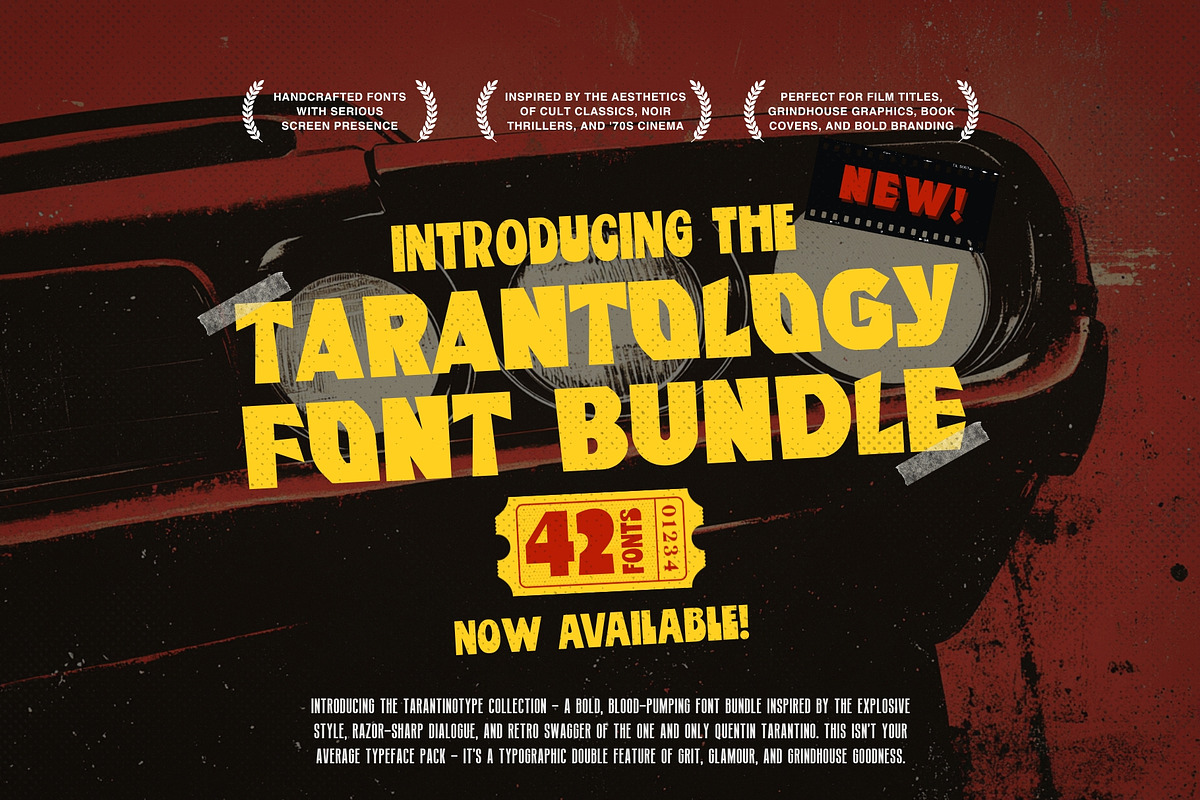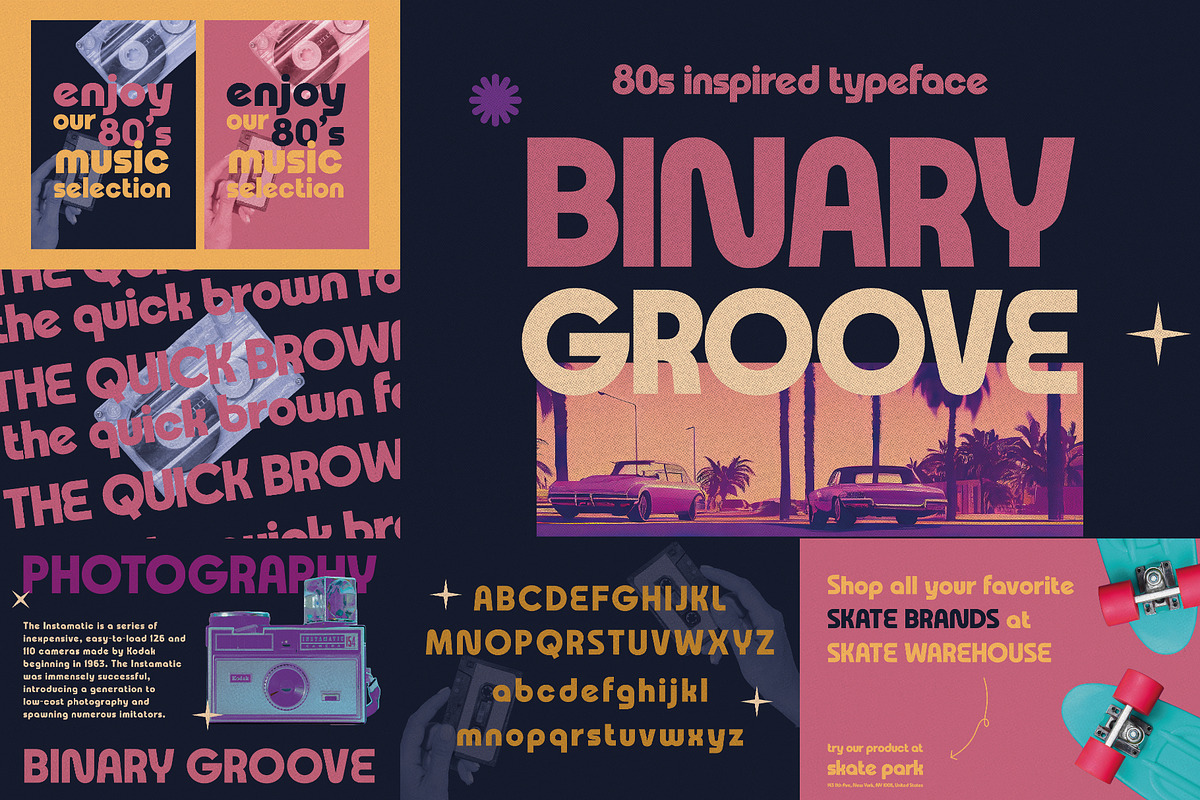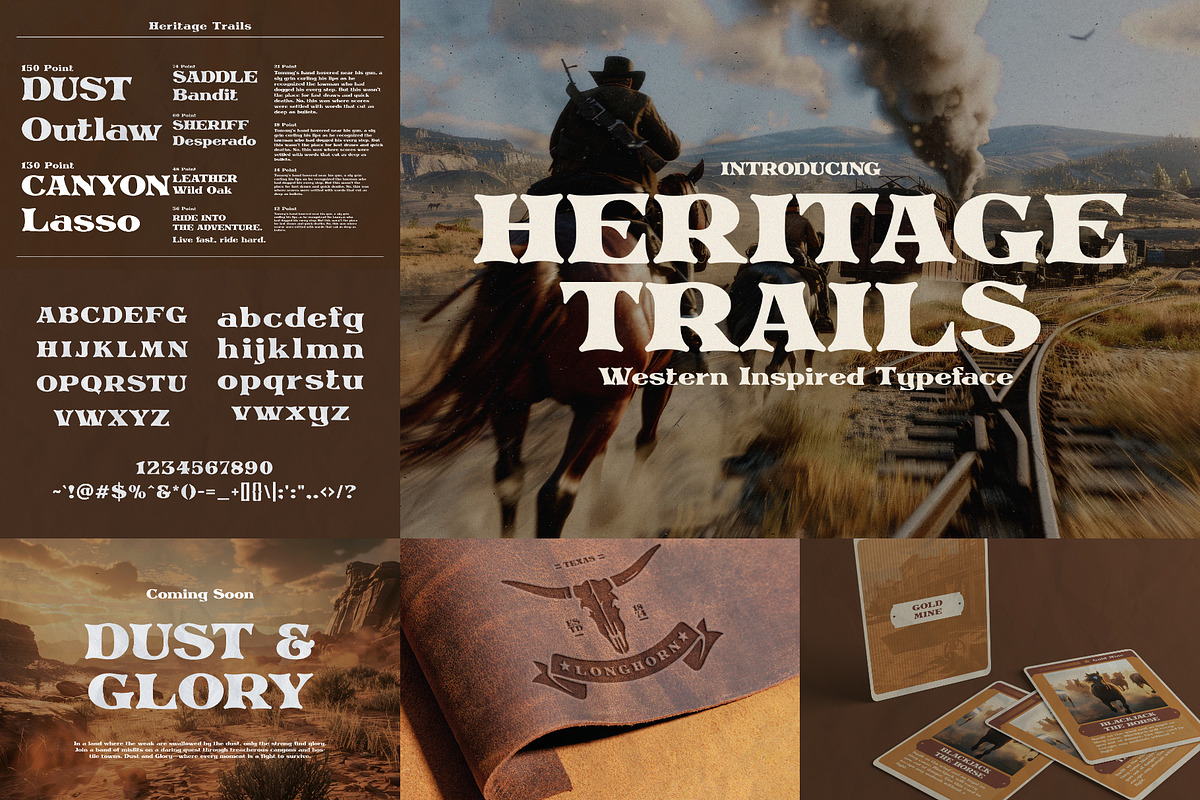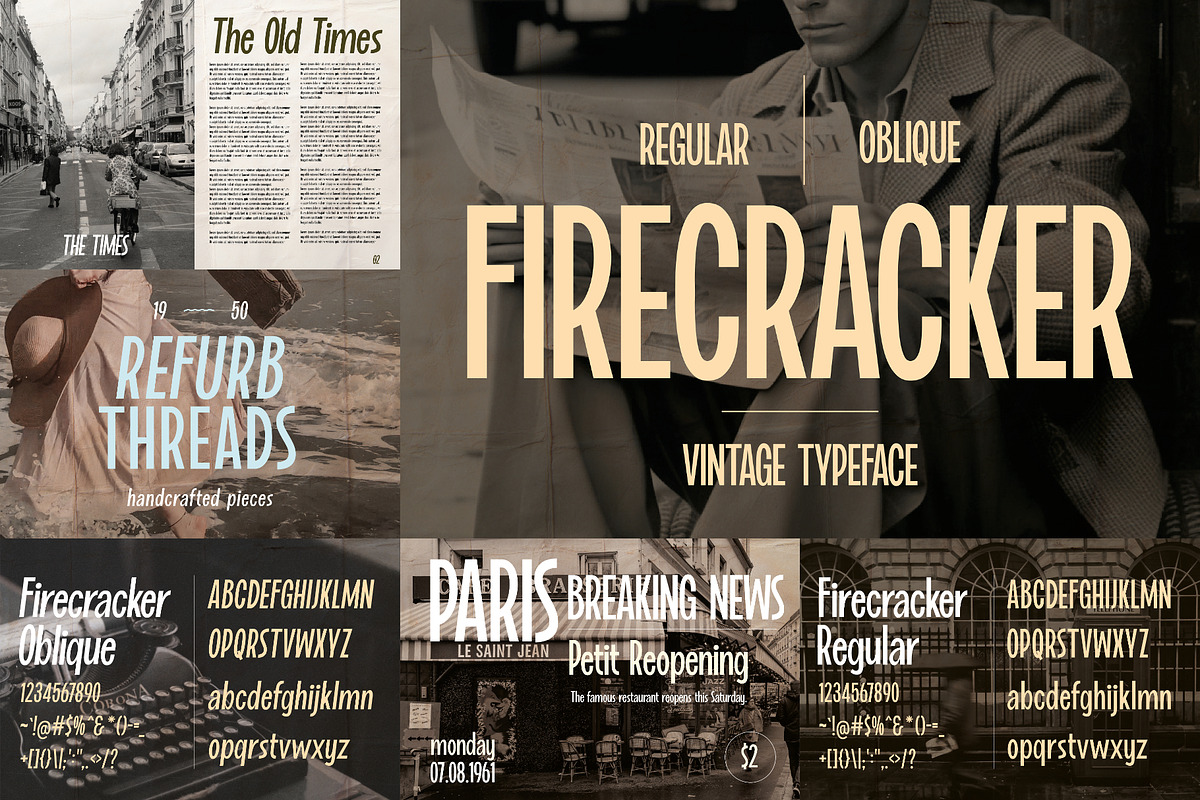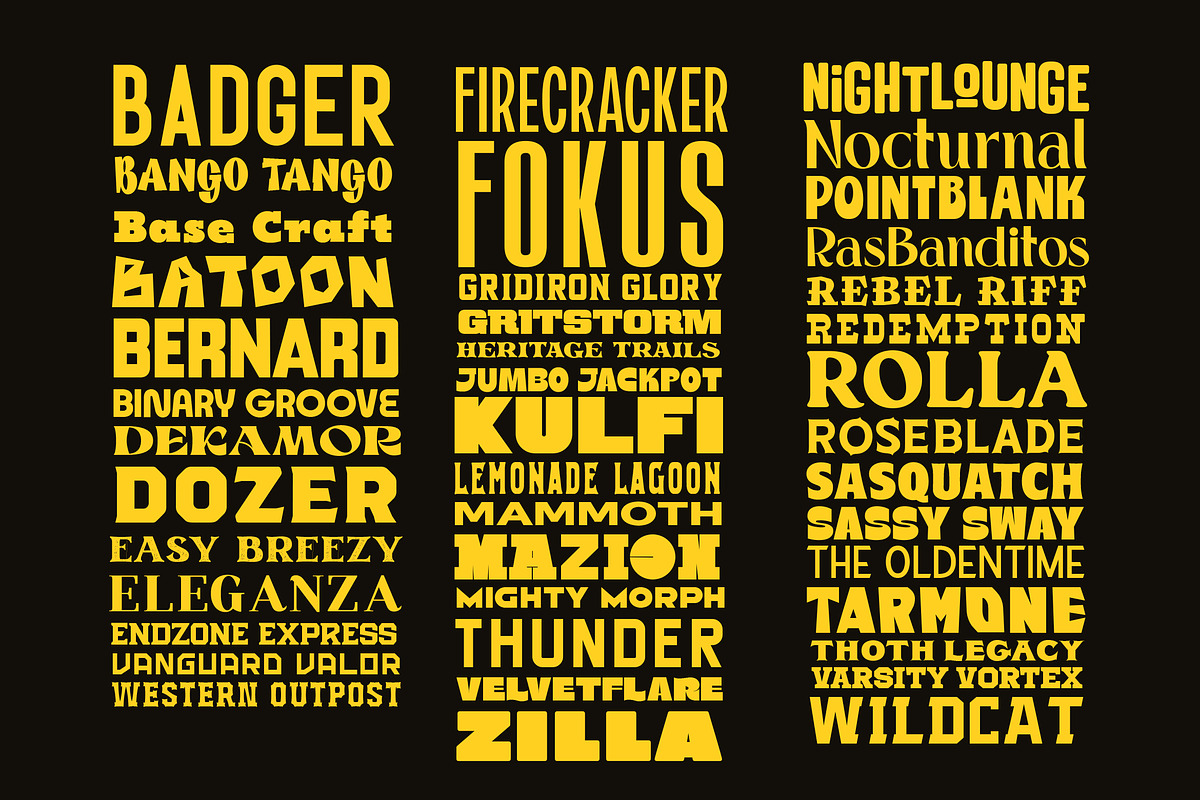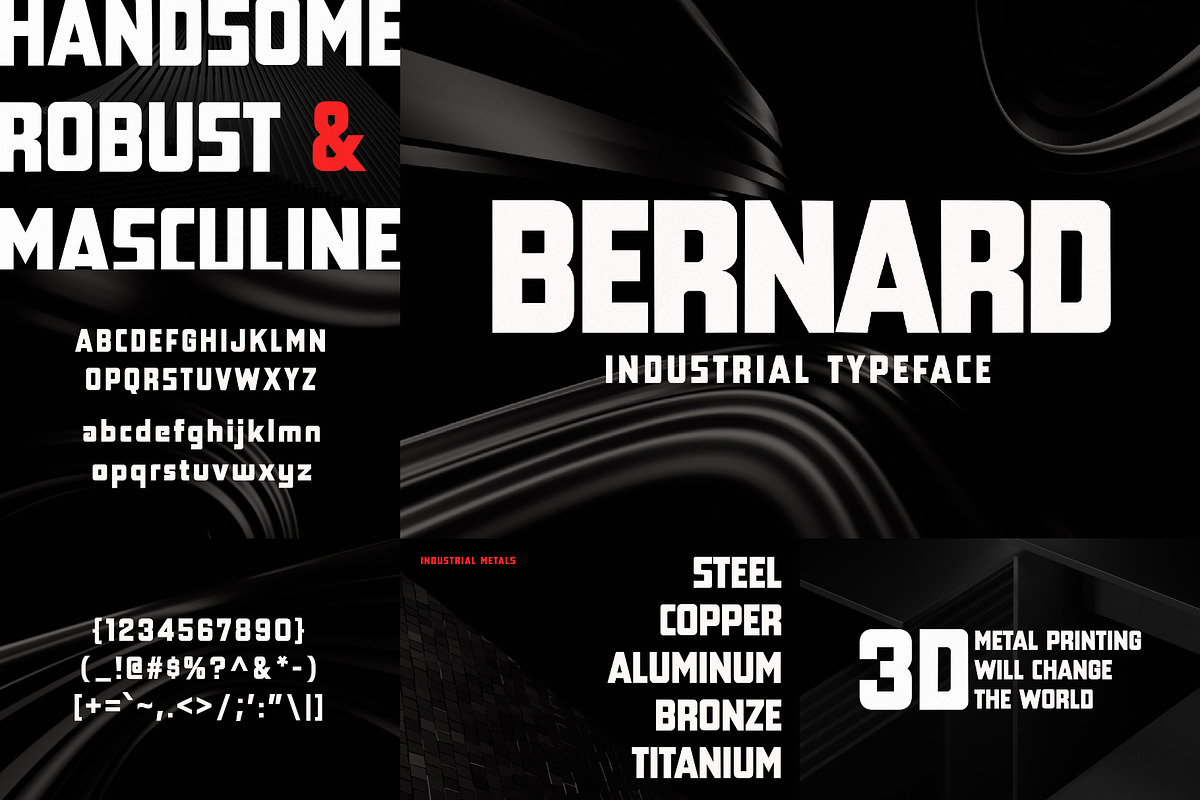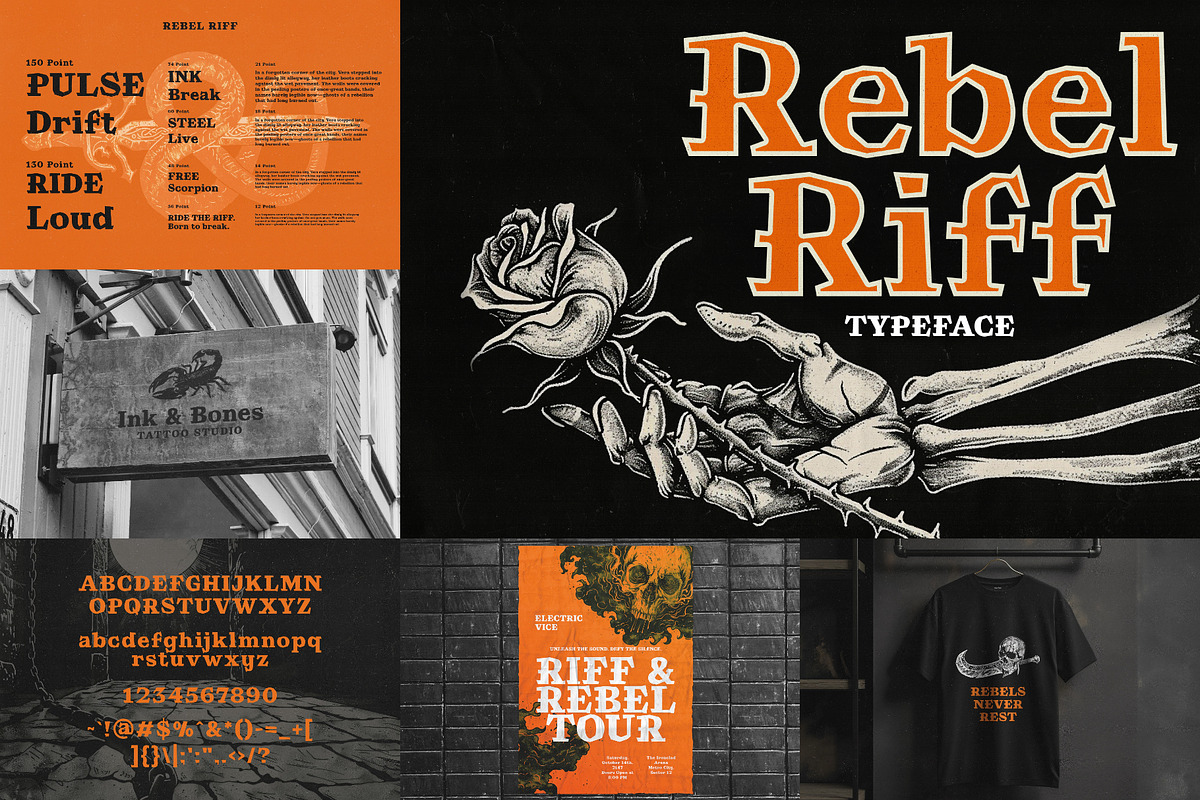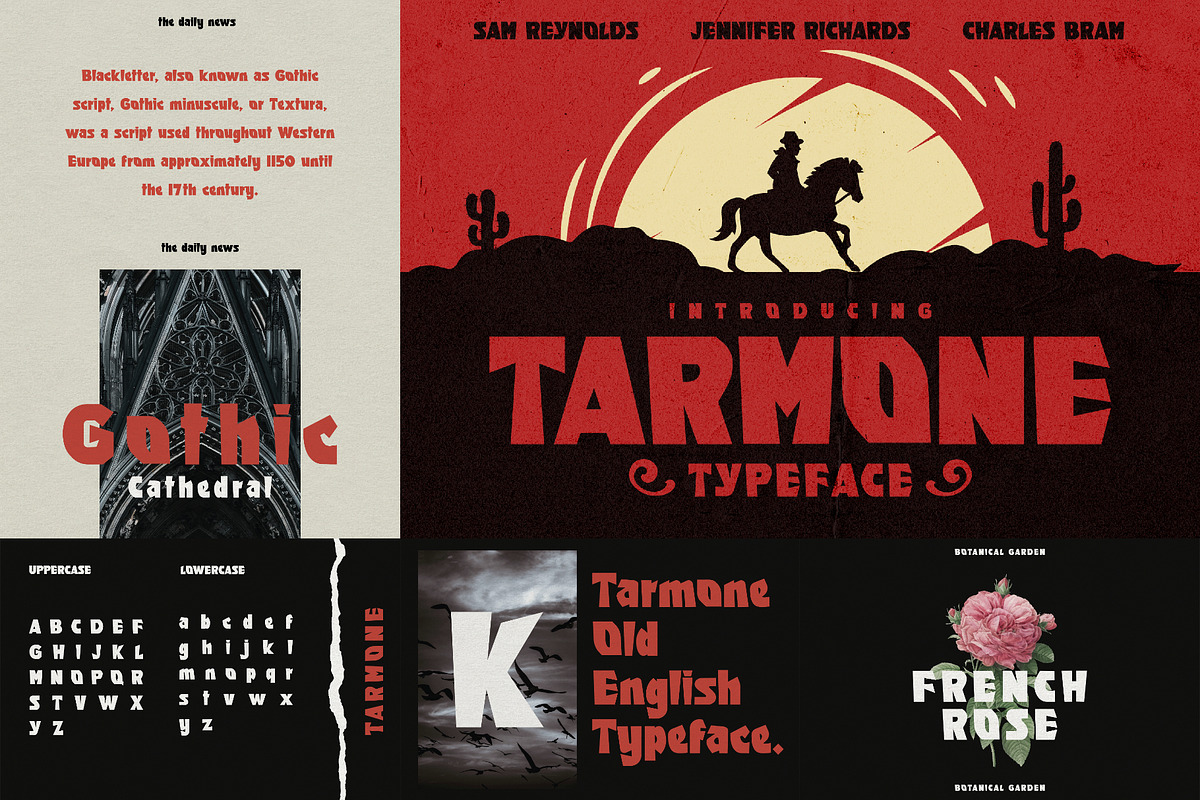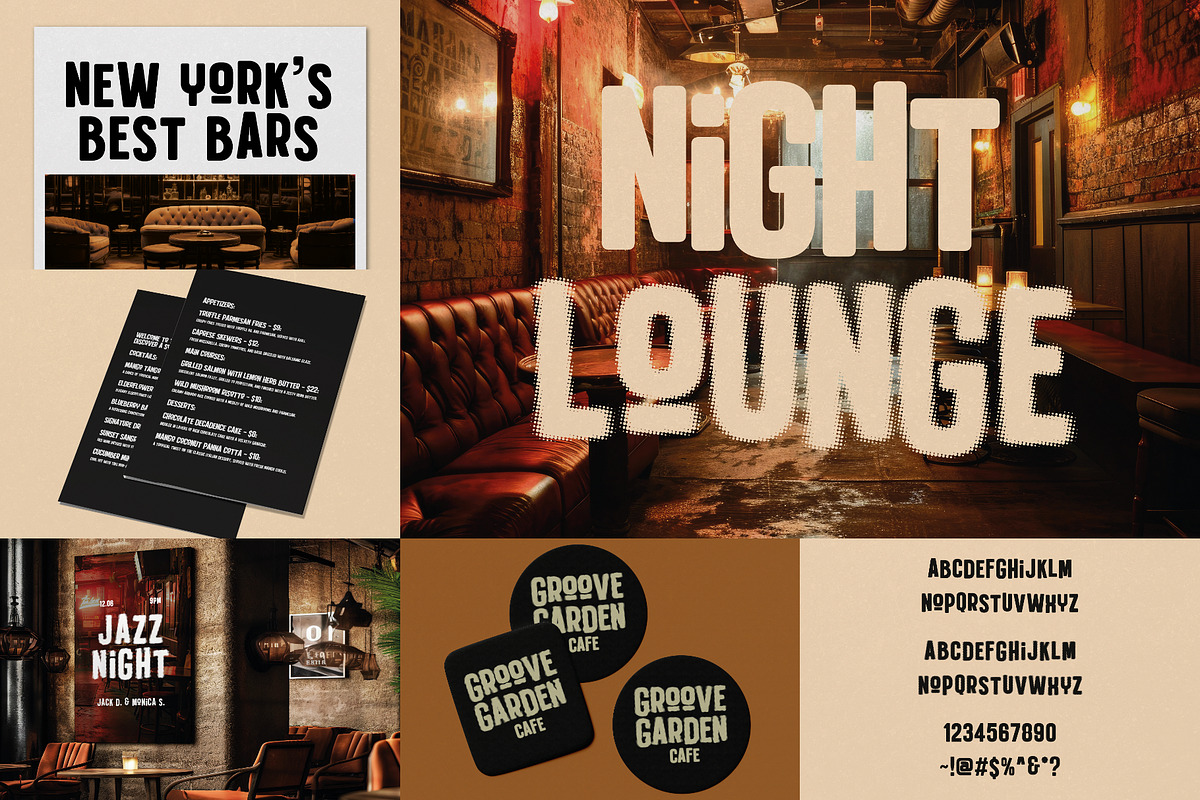
Tarantology Font Bundle (42 Fonts!)
Lights. Camera. Typography.
Introducing the Tarantinotype Collection — a bold, blood-pumping font bundle inspired by the explosive style, razor-sharp dialogue, and retro swagger of the one and only Quentin Tarantino. This isn’t your average typeface pack — it’s a typographic double feature of grit, glamour, and grindhouse goodness.
Inside, you’ll find fonts that bleed vintage cool, scream cult classic, and ooze B-movie brilliance. Think dusty desert title cards, neon-lit dive bars, pulp novel covers, and revenge-soaked screenplays — all wrapped into one killer bundle. Whether you’re designing movie posters, zines, apparel, or brand visuals with attitude, these fonts don’t just say it — they shout it.
- 42 handcrafted fonts with serious screen presence
- A mix of grungy display fonts, retro sans-serifs, and twisted script styles
- Perfect for film titles, grindhouse graphics, book covers, and bold branding
- Inspired by the aesthetics of cult classics, noir thrillers, and '70s cinema
Because you’re not just making designs — you’re telling stories. Raw, rebellious, and ready for action, the Tarantinotype Collection gives your work that unmistakable “written and directed by” energy.